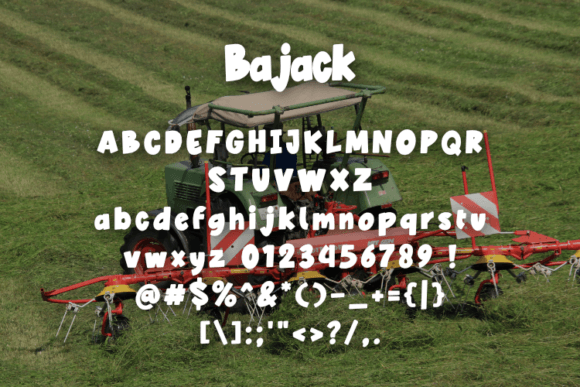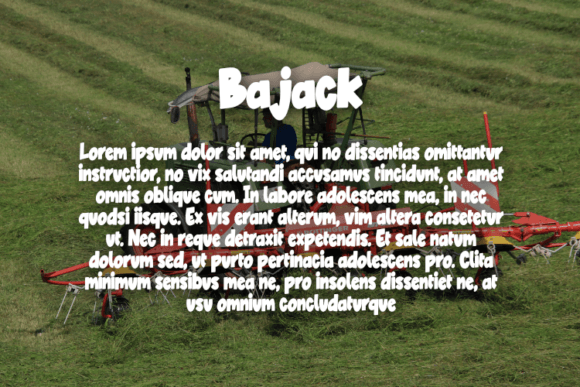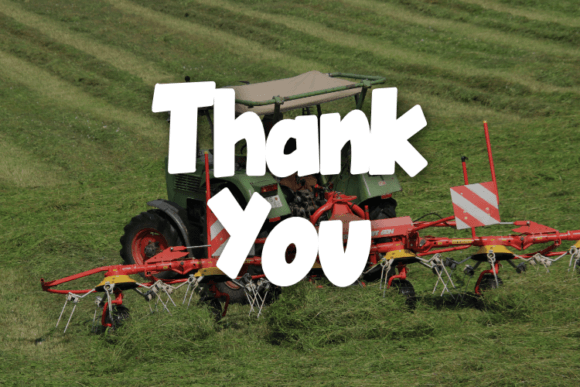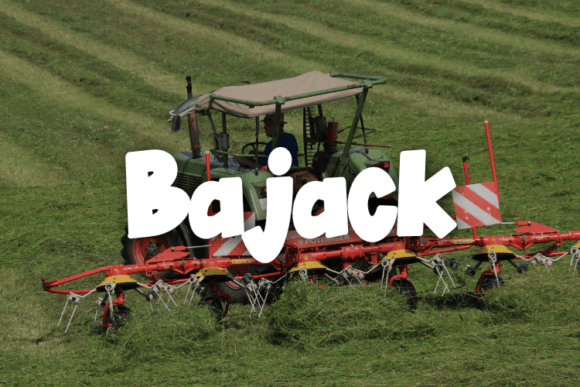
Introducing Bajack: The Versatile Font for Vibrant Designs
In the world of design, a font can make all the difference between a good design and a great one. For designers and crafters looking to elevate their clothing and accessory designs, Bajack font is here to revolutionize the way you create. This versatile font is specifically designed to breathe life into your designs, making it perfect for those who want to add a touch of personality to their work.
A Universal Language for Design Aesthetics
Bajack font serves as a universal language that resonates with design aesthetics. Its unique design strikes a perfect balance between simplicity and sophistication, making it an ideal choice for designers who want to create trendy and stylish designs. With Bajack, you can add a touch of elegance to your designs, making them stand out from the crowd.
Transforming Creative Ideas into Stunning Designs
With Bajack font, you gain the power to transform your creative ideas into stunning designs. Whether you’re looking to create trendy t-shirts, alluring decor pieces, or any other type of design, Bajack provides the perfect foundation. Its versatility and adaptability make it an ideal choice for designers who want to push the boundaries of their creativity.
The Power of Simplicity and Sophistication
Bajack font embodies a perfect balance of simplicity and sophistication. Its clean lines and elegant design make it an ideal choice for designers who want to add a touch of refinement to their work. At the same time, Bajack’s unique design ensures that your designs stand out from the crowd, making it perfect for those who want to create something truly unique.
Elevate Your Designs to the Next Level
Whether you’re a professional designer or a crafter, Bajack font is the perfect tool to elevate your designs to the next level. Its versatility, adaptability, and unique design make it an invaluable asset for anyone looking to create stunning designs. With Bajack, you can:
- Create trendy t-shirts that appeal to fashion enthusiasts
- Design alluring decor pieces that add a touch of elegance to any room
- Develop branding materials that reflect your unique style and aesthetic
- Push the boundaries of your creativity and experiment with new design ideas
In conclusion, Bajack font is a versatile and adaptable font that is perfect for designers and crafters looking to elevate their clothing and accessory designs. Its universal compatibility, flexible file formats, and unique design make it an ideal choice for anyone looking to create stunning designs. With Bajack, you can transform your creative ideas into trendy and stylish designs that resonate with your target audience. So why wait? Download Bajack font today and take your designs to the next level!